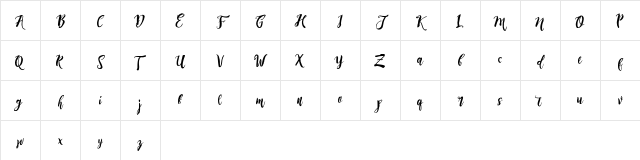
Complete DirtylineRising Brush Free Regular glyph index. Displaying only characters natively supported by DirtylineRising Brush Free Regular font.
DirtylineRising Brush Free flows with the natural rhythm of handwritten lettering, making it ideal for designs that call for warmth and personal expression.
Font Pairing: Combine DirtylineRising Brush Free with a simple geometric sans for maximum contrast - the tension between flowing curves and clean structure is a classic typographic pairing.
Pro Tip: Use DirtylineRising Brush Free for short runs of text - names, titles, or taglines. Extended body copy in script faces tires the eye quickly.